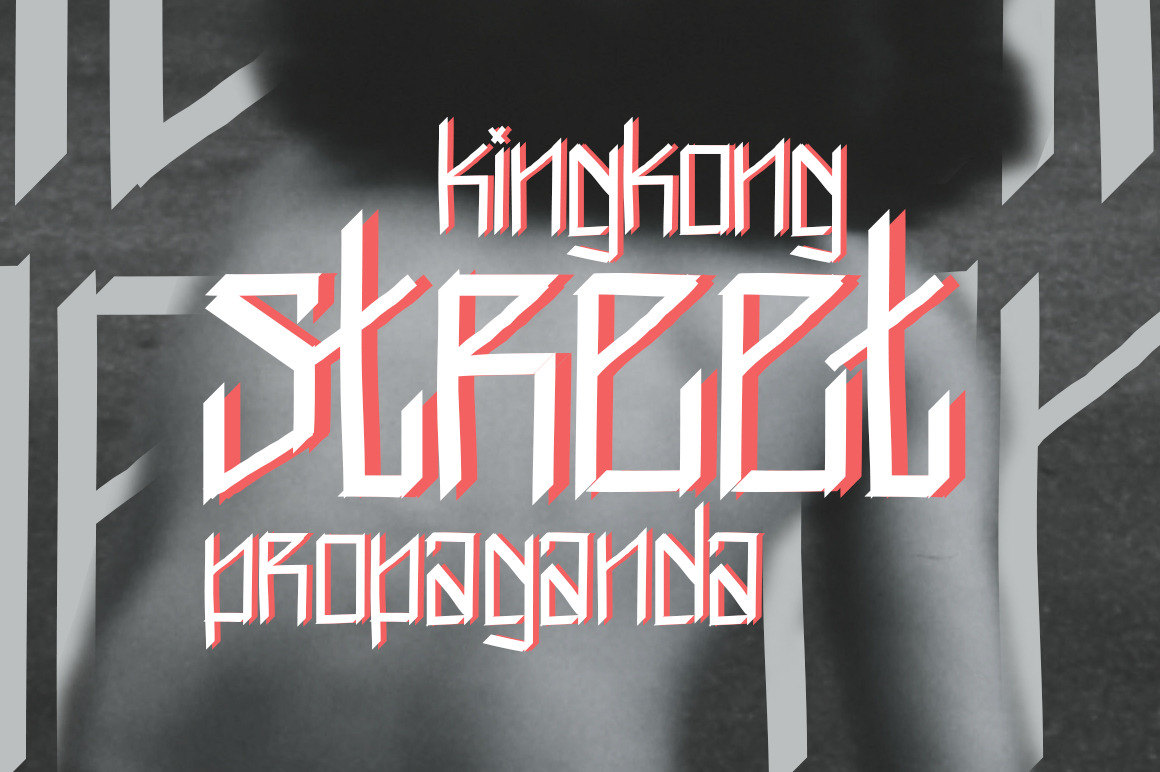
King Kong Street Propaganda - Font.
King Kong Street Propaganda font by David A. Slaager for Fonts of Chaos. KKSP is a typo taking inspiration from the street types of L.A.